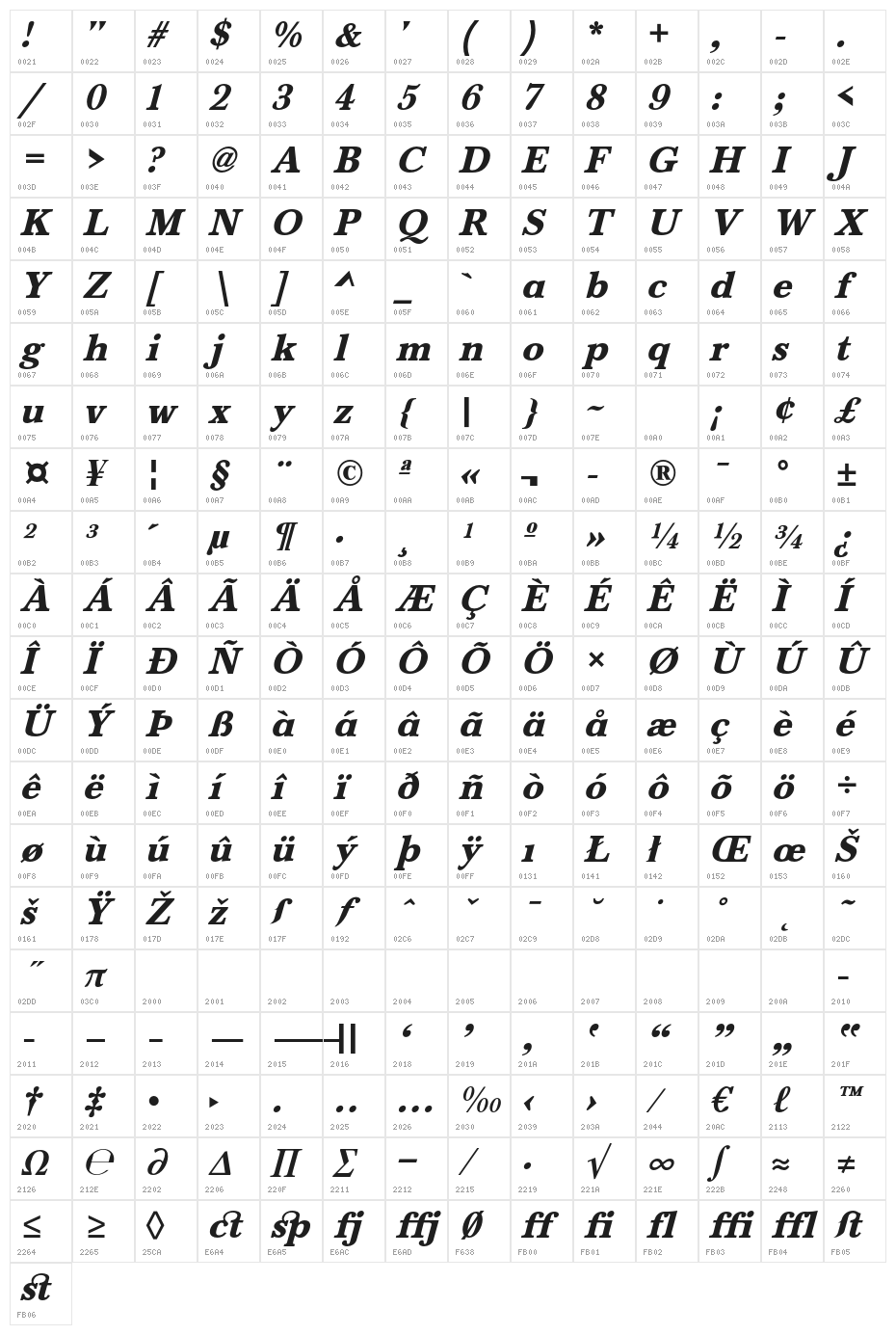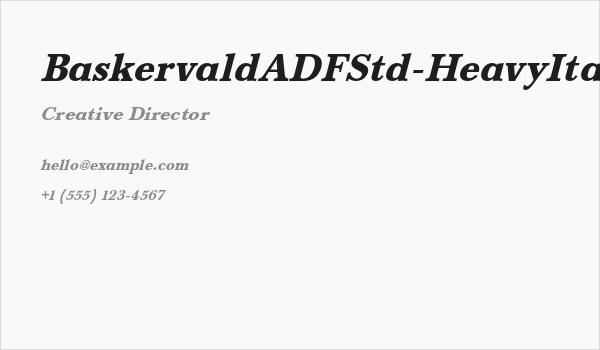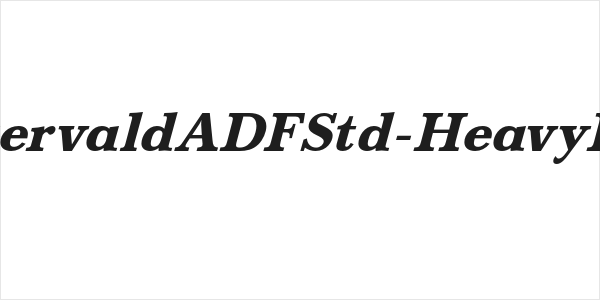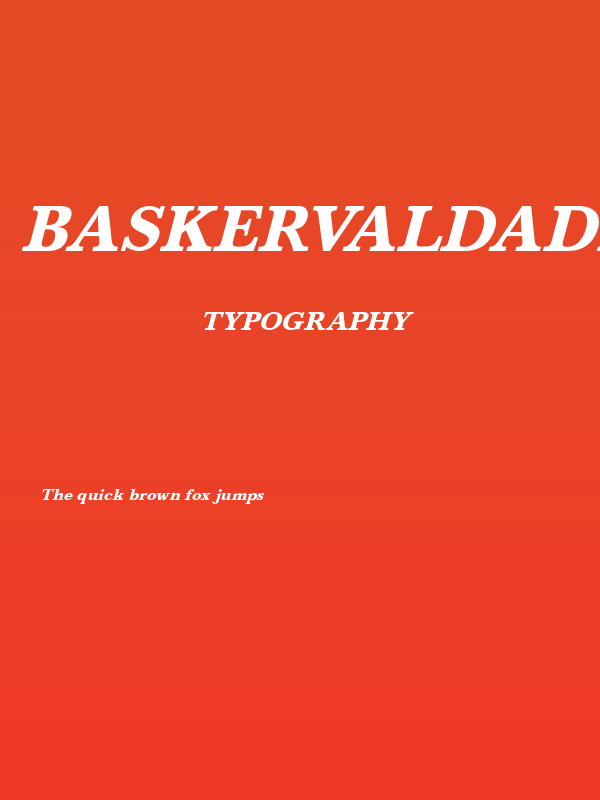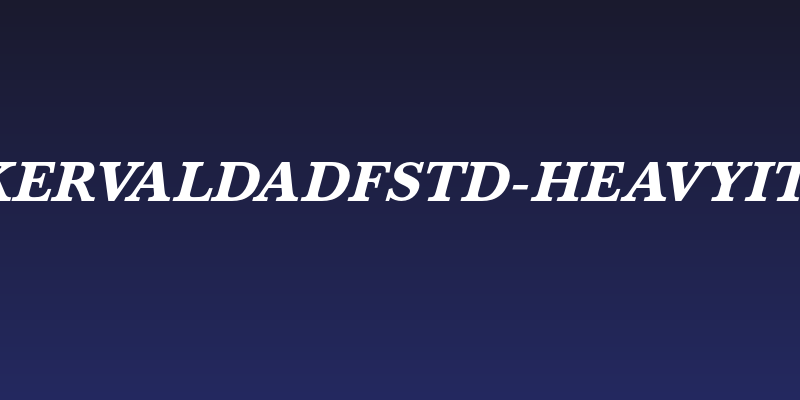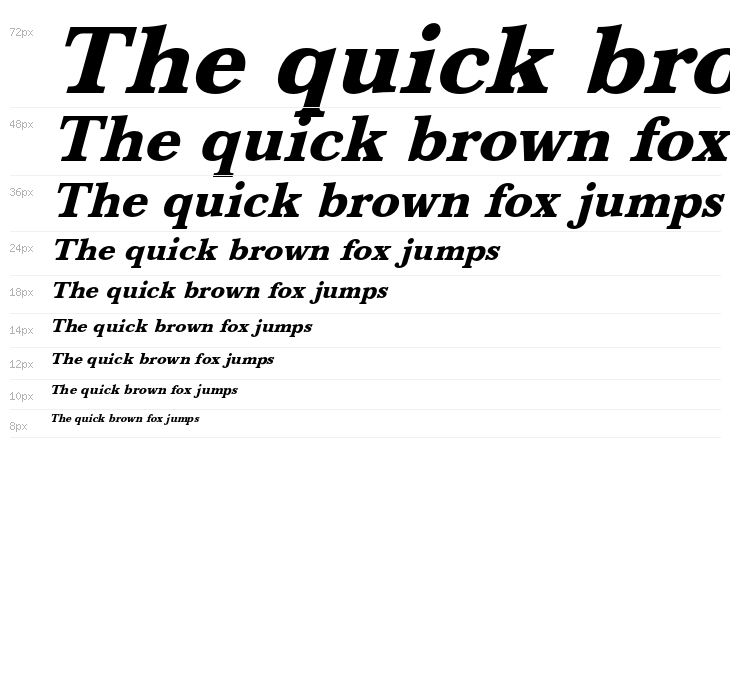
BaskervaldADFStd-HeavyItalic Font
BaskervaldADFStd-HeavyItalic Description
This font exudes a classic elegance with its serif style, characterized by thick, bold strokes and a distinct italic slant. The uppercase letters are robust and commanding, while the lowercase letters maintain a graceful flow. The numerals are well-proportioned, ensuring readability. Special characters are crafted with the same attention to detail, making them suitable for a variety of uses. The overall impression is one of sophistication and strength, ideal for making a statement in any design project.
| Use Case | Headlines, Logos, Editorial design |
| Proposed Projects | Ideal for book covers, formal invitations, branding materials, and editorial design. |